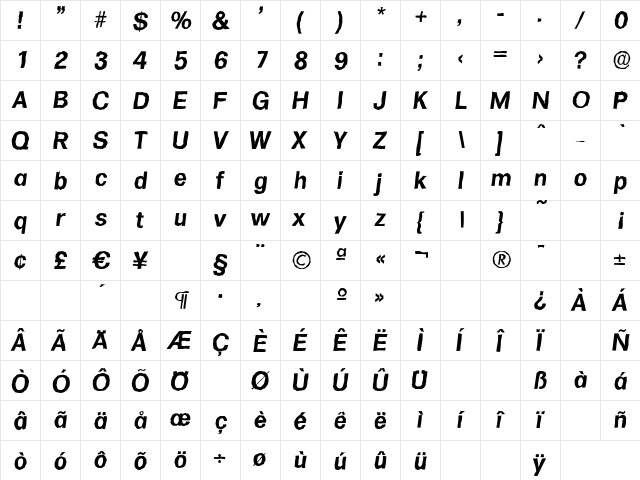
FormulaAntique BoldItalic Font Preview
Design Context for FormulaAntique Typeface
FormulaAntique has the warm character of retro typography — evoking diners, record sleeves, and the golden age of print advertising. The dynamic lean of this cut emphasises speed and emphasis in any layout. Its bold stroke weight gives it real presence on the page.
Font Pairing: Combine FormulaAntique with a simple slab or neutral sans — period-accurate companions reinforce the vintage feel without competing for attention.
Pro Tip: Lean into FormulaAntique's period character by pairing it with aged paper textures, muted colour palettes, and vintage illustration styles.